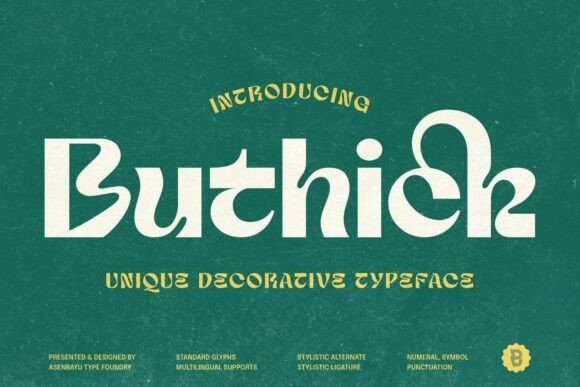
Introduction to Buthick Font
Buthick is a unique decorative display font.
This font is characterized by being bold and conveys a pleasant image This font also has a modern feel with a sans serif outline.